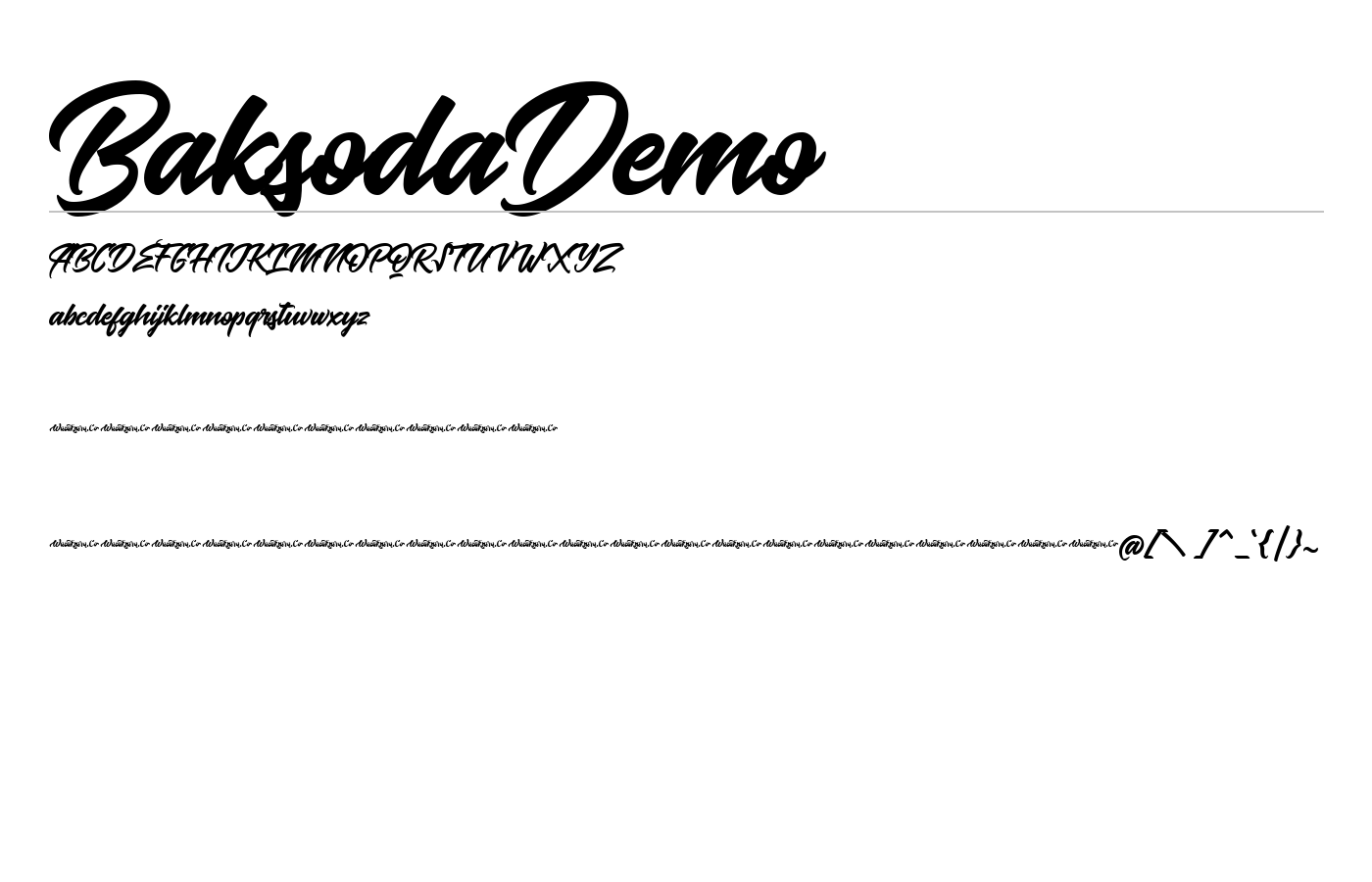
BaksodaDemo is a bold, script-style font with a lively and energetic flow, characterized by its smooth, brush-like strokes and rounded edges. Its high contrast between thick and thin lines combined with a casual yet polished look makes it perfect for dynamic branding, logos, and headlines that seek a personal, approachable, and creative feel. This font works especially well in designs that want to convey friendliness and flair, such as fashion labels, invitations, or lifestyle products.
BaksodaDemo Font
About BaksodaDemo Font
| Font family | BaksodaDemo Font |